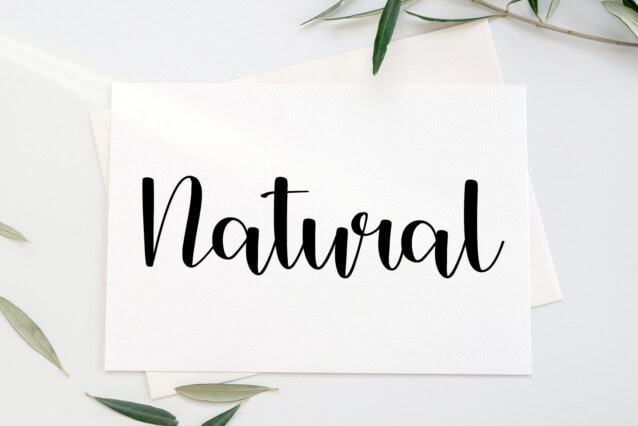
Miniature Display Font
Miniature Display Font is a beautiful and refined script font. It has a classy, elegant, and modern look that can be used for logos, branding, invitations, stationery, wedding designs, social media posts, and much more!